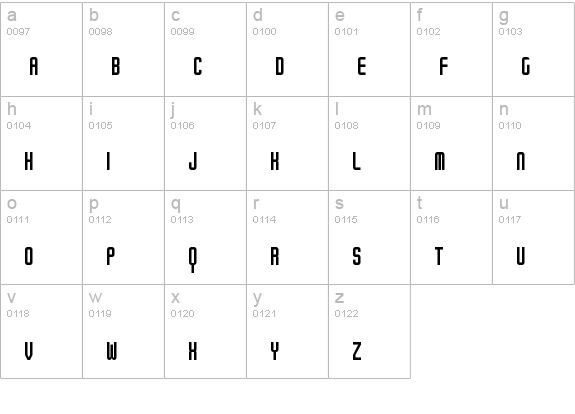
BrightonTwo SmallCaps NBP Font Details
BrightonTwo SmallCaps NBP font is a remarkable typeface that combines elegance and versatility. This font is perfect for projects that require a touch of sophistication and professionalism. With its stylish design and clean lines, BrightonTwo SmallCaps NBP font is sure to make a lasting impression. One of the best features of this font is that it is freely available to download at FontsMarket.com. This means that anyone can access and use this font without any restrictions. Whether you are a designer, business owner, or simply someone who appreciates high-quality fonts, BrightonTwo SmallCaps NBP font is a must-have in your collection. The attention to detail in this font is truly exceptional. Each letter is meticulously crafted to ensure a harmonious and balanced overall look. The small caps style adds a unique touch to any text, making it stand out from the crowd. Whether you are creating a logo, a website, or any other design project, BrightonTwo SmallCaps NBP font will elevate your work to new heights. The versatility of this font is another reason why it is so popular. It can be used for both formal and informal projects, making it suitable for a wide range of applications. The clean and legible design ensures that your message is conveyed clearly and effectively, regardless of the context. In conclusion, BrightonTwo SmallCaps NBP font is a stunning typeface that is sure to enhance any design project. Its elegant and versatile design, coupled with its availability as a free download at FontsMarket.com, makes it a valuable asset for designers and enthusiasts alike. Don't miss out on the opportunity to add this font to your collection and elevate your designs to new heights.